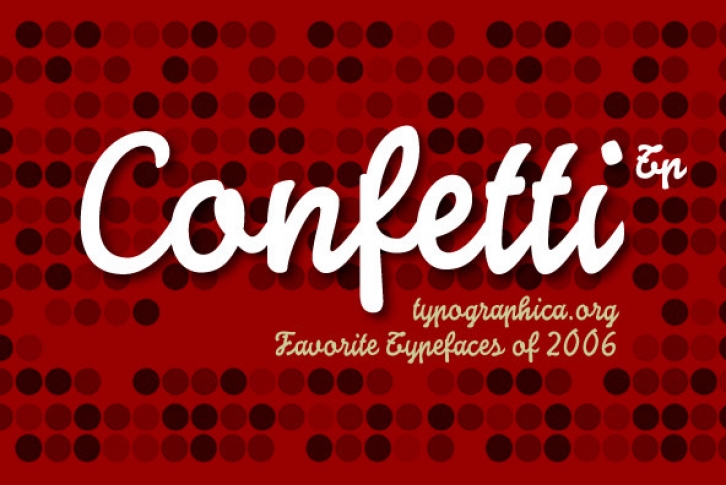
The Confetti is a typeface created about 1930 by the defunct José Iranzo foundry in Barcelona, and imitates the forms and gestures of handwriting created with a round nib as “Speedballâ€Series B.
The original typefaces were a pair, called “Escritura Energica †and “Escritura maravillaâ€. The typography has a dynamic air, caused partially by irregular alignment of the characters respect to the baseline and aesthetics takes us to the proposed commercial lettering or advertising of years 20-30. More…
Confetti was one of the fonts selected by the website
in its prestigious list of “Our Favorite Typefaces†in 2006.